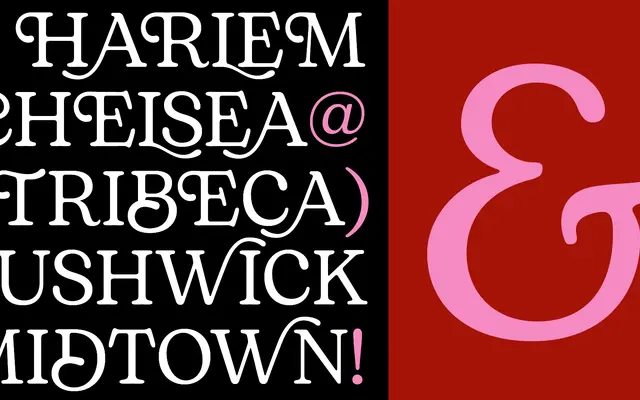
Bogart
Zetafonts · Francesco Canovaro · 2020
A wide-ranging oldstyle fat face by Francesco Canovaro that draws on Cooper Black, Goudy Heavy Face, Bookman and Windsor across nine weights, three widths and an alternate text-oriented subfamily.
Designed in 2020 and drawing explicitly on the goopy, low-contrast forms of Cooper Black and Goudy Heavy Face, the family traces its lineage through rub-on transfers and phototypesetting culture of the 1960s and 70s. The lighter weights pull teardrop terminals from Windsor rather than collapsing into shapeless blobs, giving the family genuine range from display titling to readable text. Over 1,600 glyphs per style cover 219 languages across Latin, Cyrillic and Greek, with swash forms, small caps, stylistic sets and variable font support rounding out the offering.
A low-contrast oldstyle fat face drawing directly on Cooper Black, Goudy Heavy Face, Bookman and Windsor; the wide weight range and teardrop terminals at lighter weights place it firmly in the oldstyle display serif tradition.